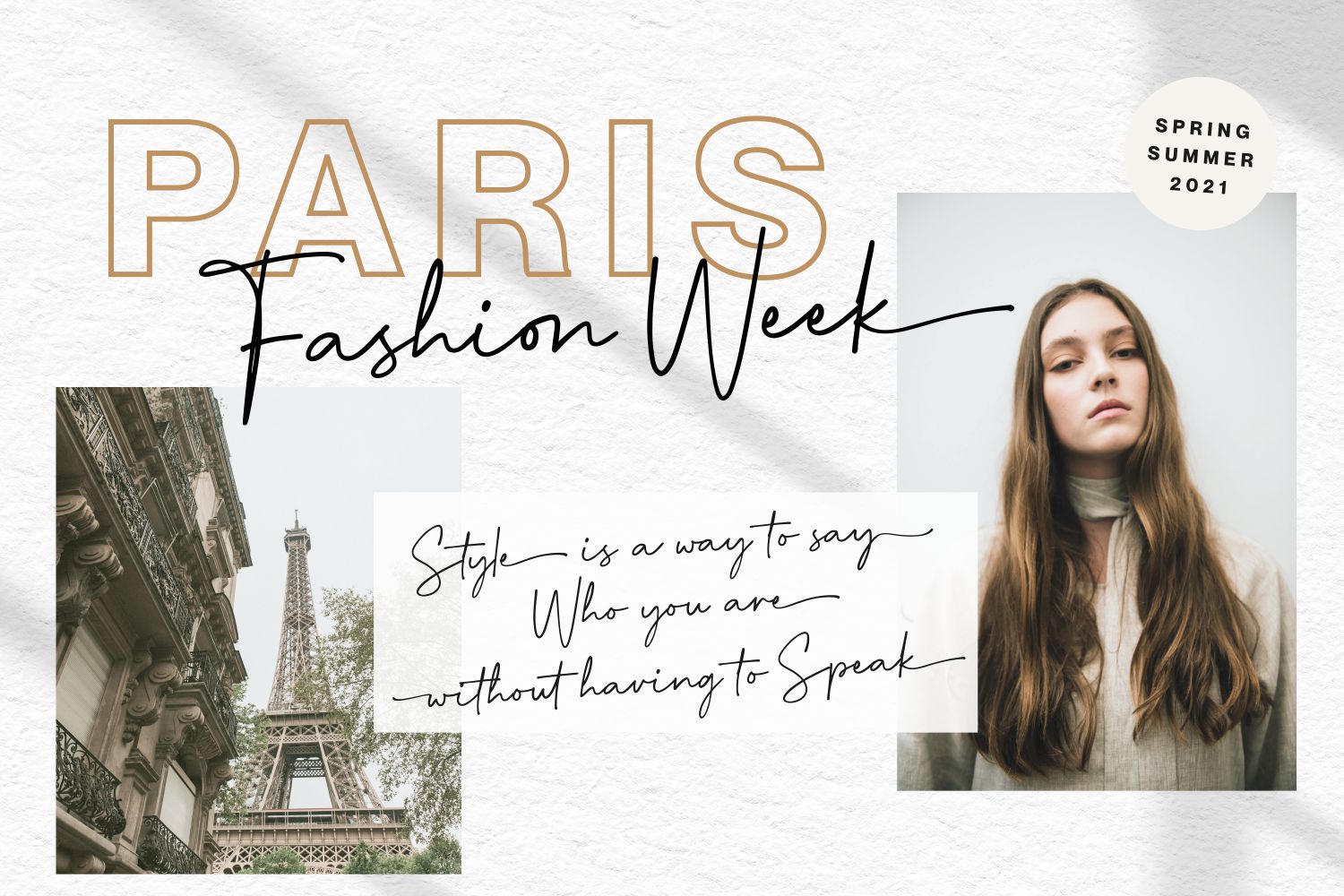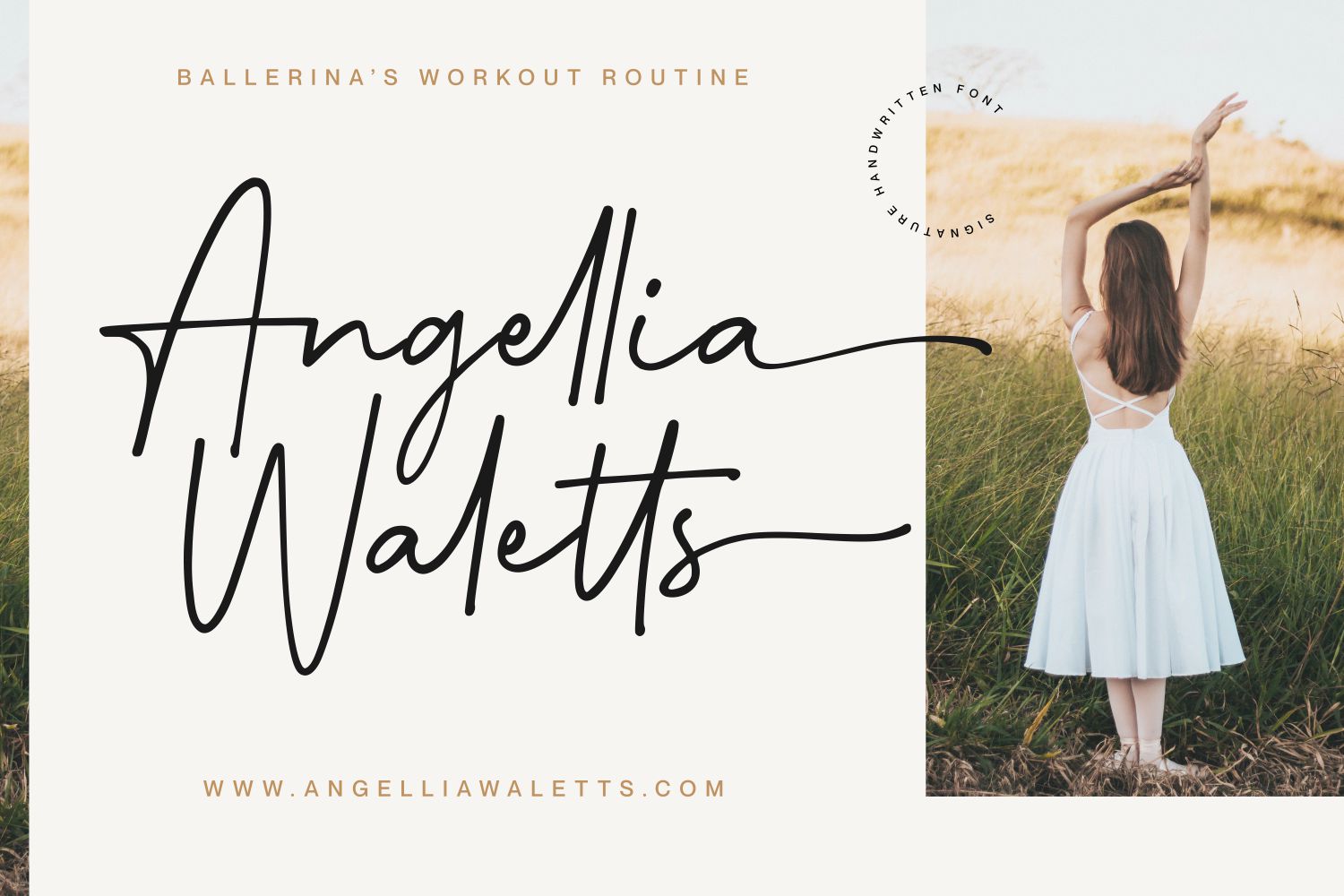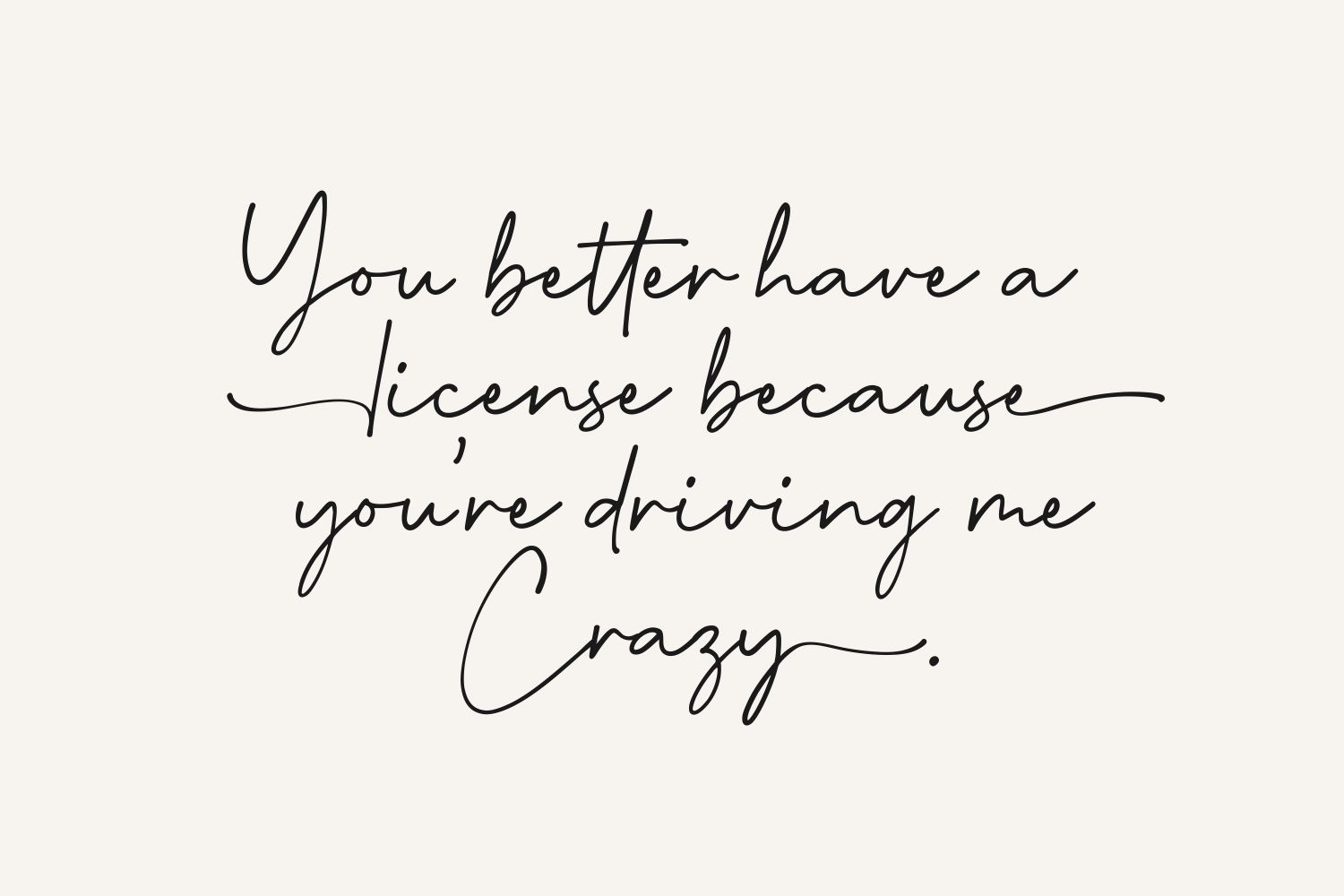
Fireheart Font
Fireheart Handwritten Font
This is a lovely script font featuring charming, playful characters that seem to dance along the baseline. Add this font to your most creative ideas, and notice how it makes them stand out! Fireheart is PUA encoded which means you can access all of the glyphs and swashes with ease!